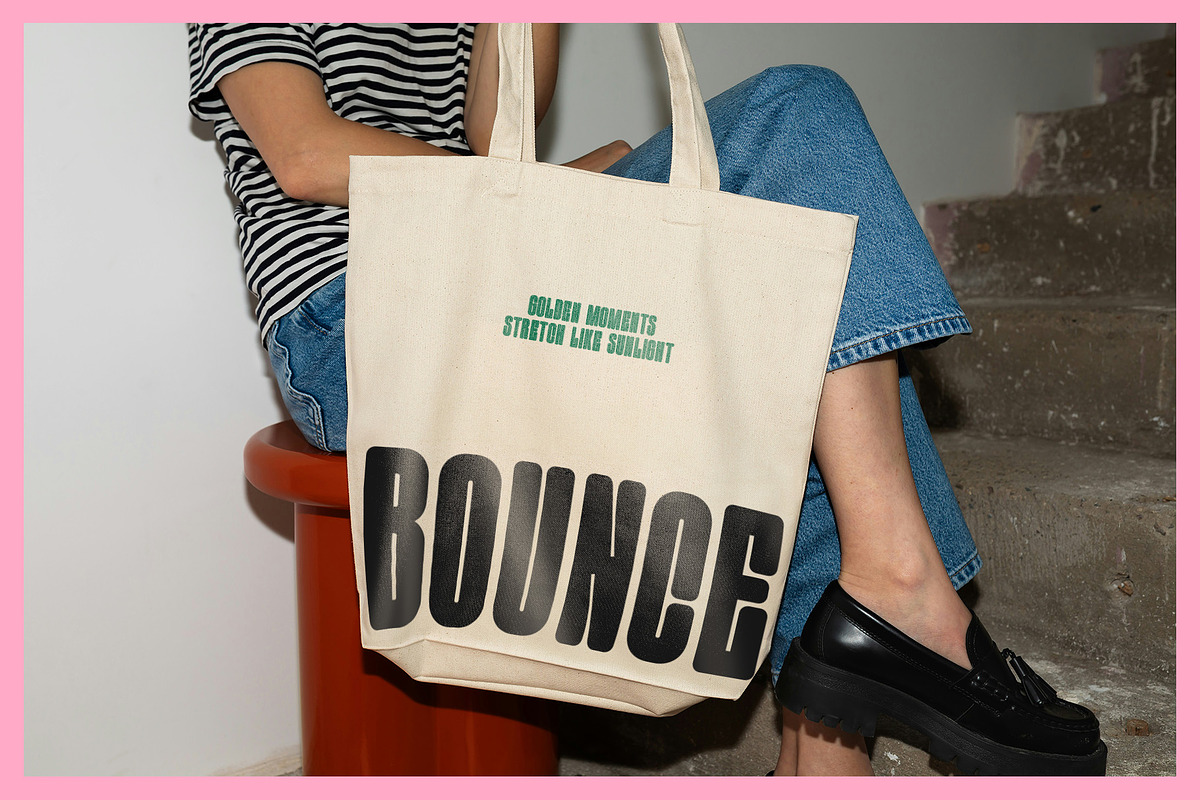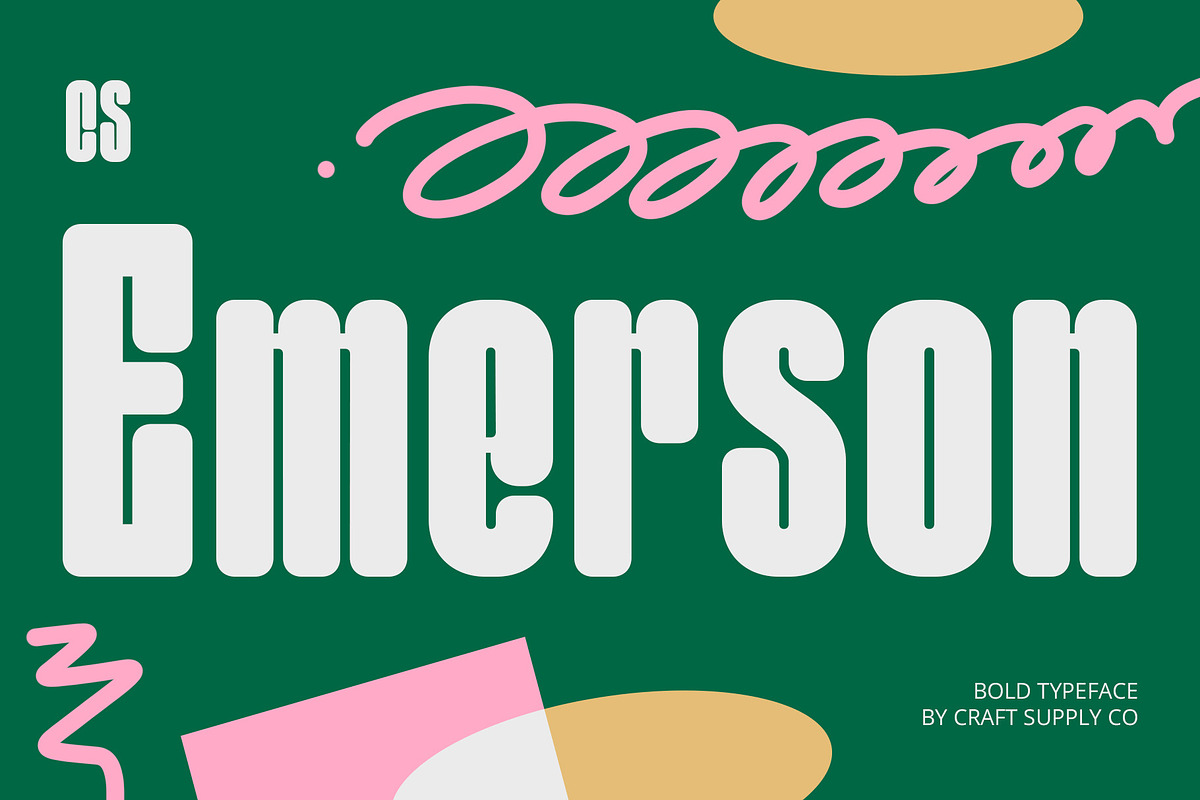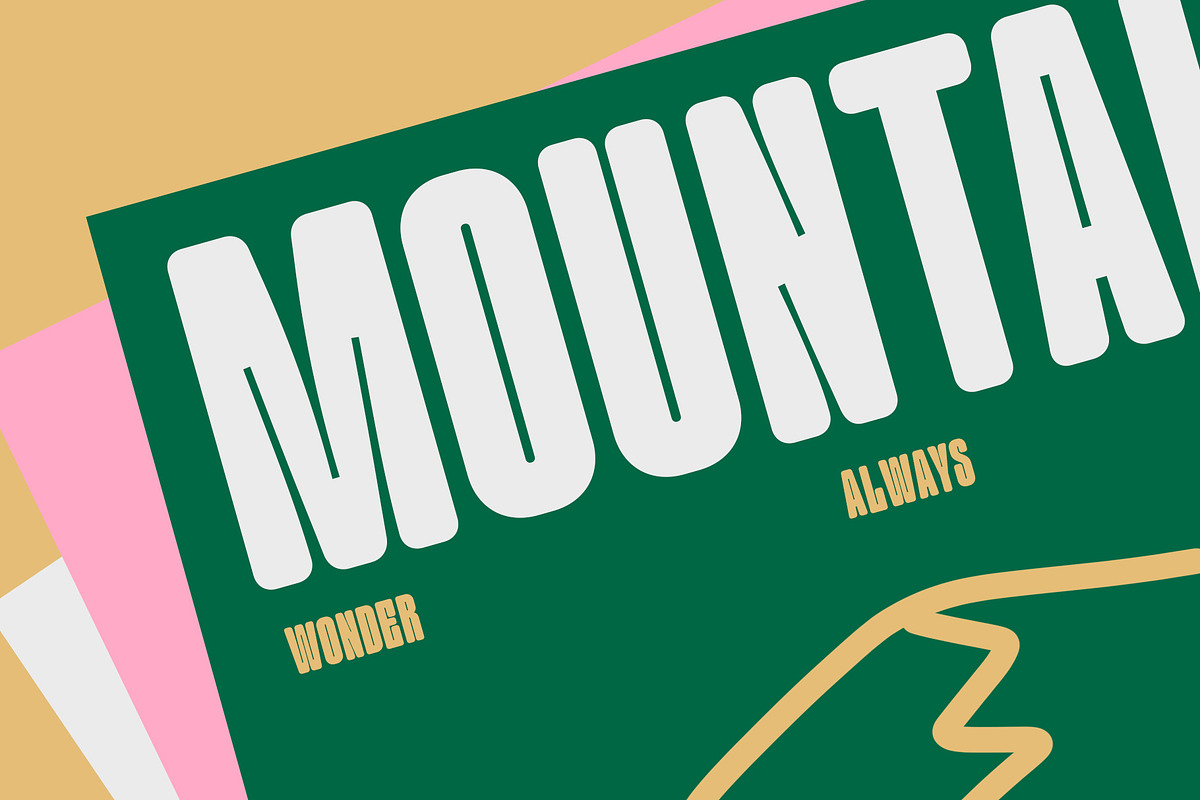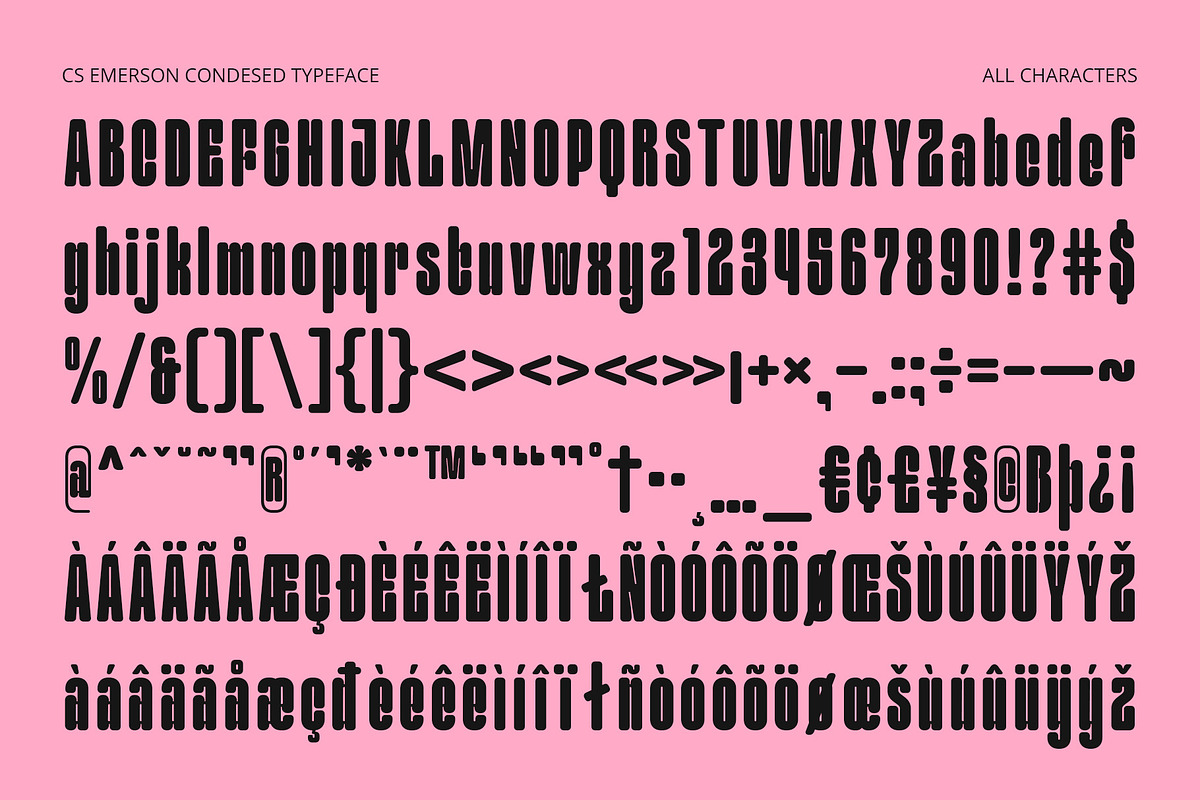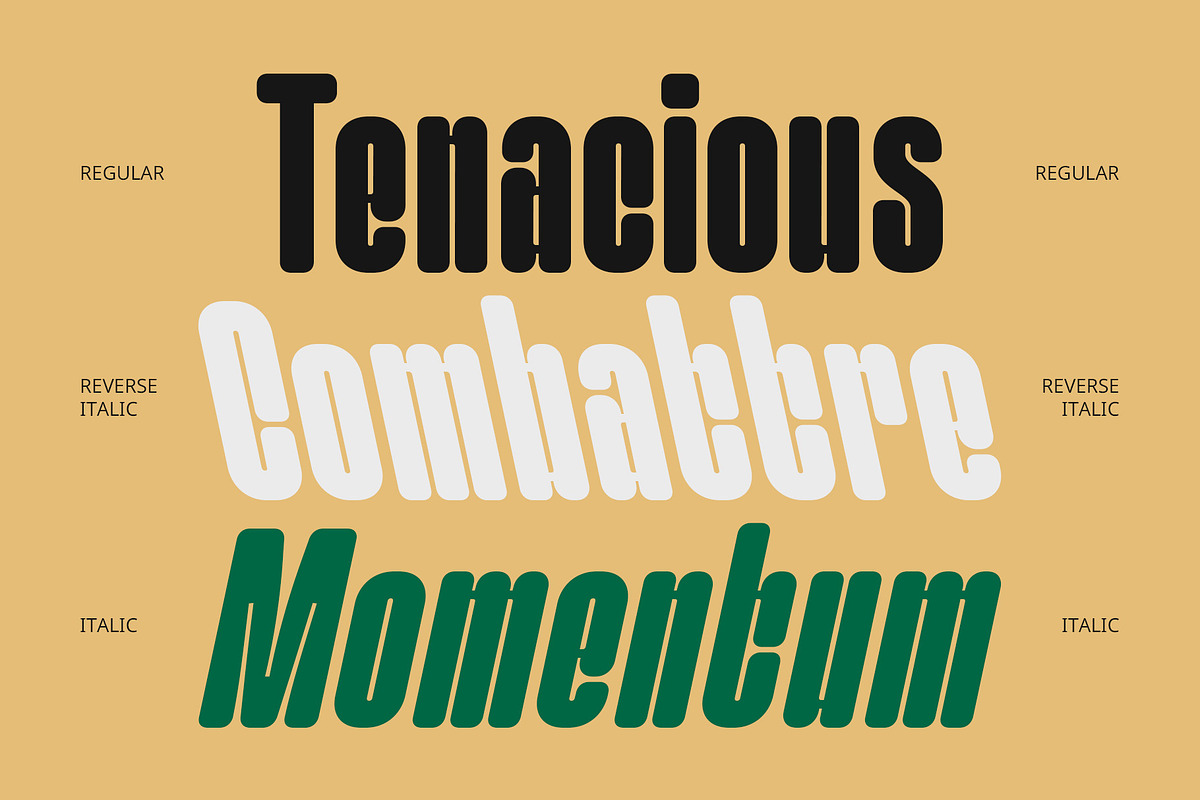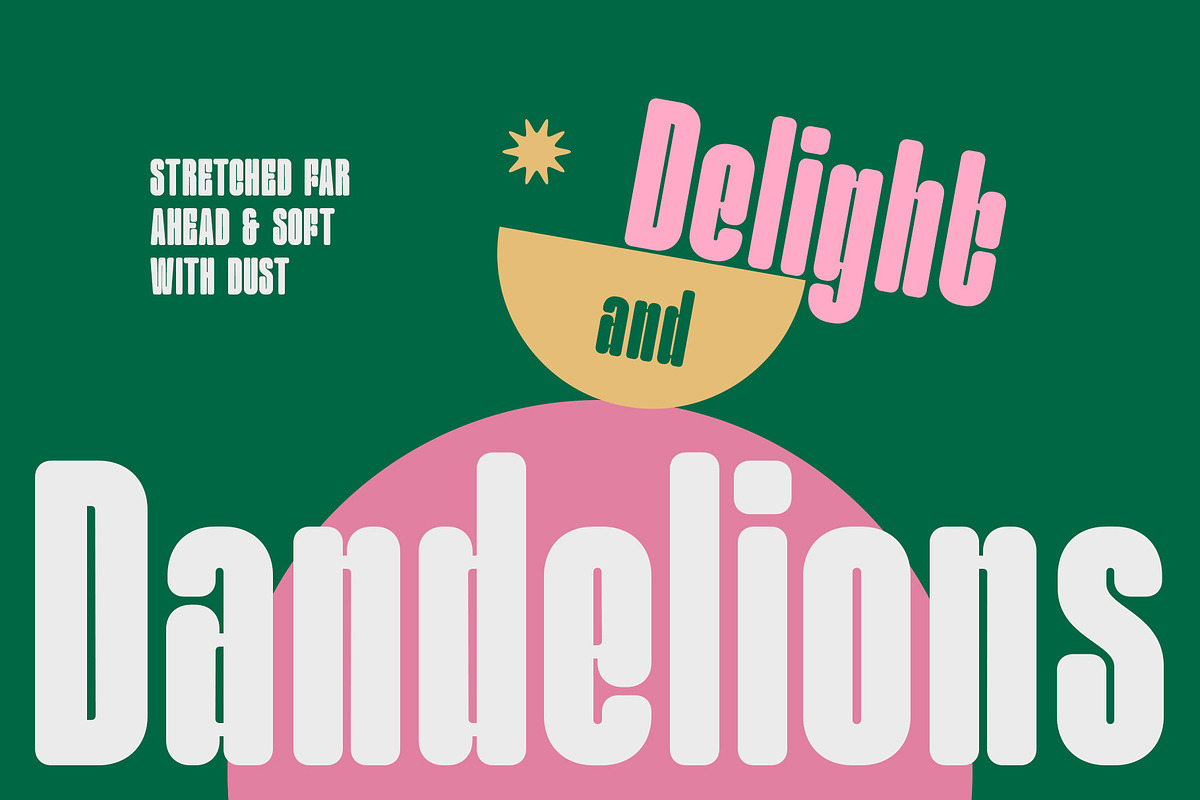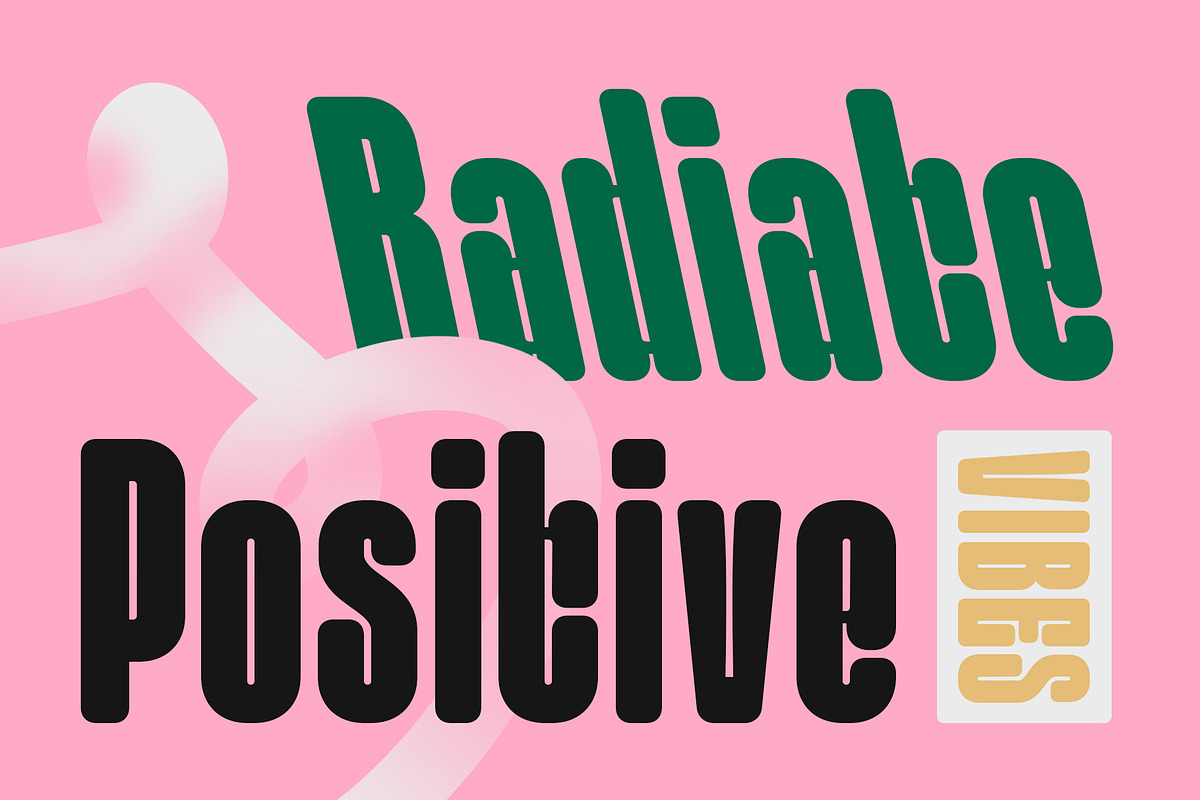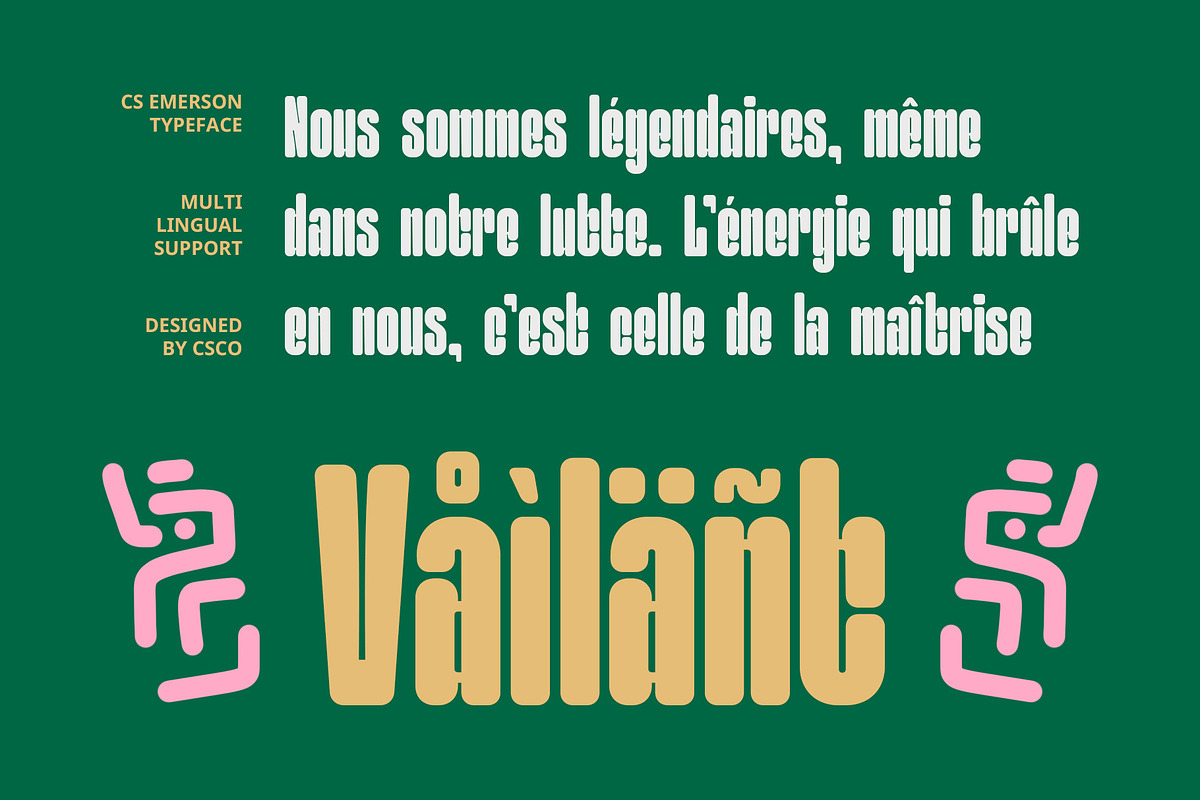
CS Emerson – Bold Font
CS Emerson – Bold Font: Retro Charm Meets Modern Simplicity
Bold, Condensed Structure with a Soft Touch CS Emerson is a display sans serif font featuring a bold weight and a condensed layout that maximizes space without compromising on legibility. Its slightly rounded edges add a touch of softness to its strong appearance, balancing boldness with friendliness and approachability.
Retro Inspiration with a Modern Twist Rooted in classic retro aesthetics, CS Emerson revives nostalgic design elements with a clean and modern execution. The vintage influence is visible in its proportions and structure, but its smooth curves and geometric balance keep it perfectly relevant for today’s creative needs.
Distinctive and Memorable Personality Every letterform in CS Emerson is crafted to leave a visual impression—unique enough to stand out, yet clean enough to support versatile design applications. Its blend of retro boldness and modern simplicity makes it ideal for logos, posters, headlines, packaging, and lifestyle branding.
Ideal for Bold and Nostalgic Design Projects Whether you’re creating standout social media graphics, stylish apparel branding, or eye-catching editorial layouts, CS Emerson offers a dynamic look that evokes warmth, confidence, and timeless cool. It’s the perfect choice for projects that seek to blend nostalgia with a fresh and modern edge.
- CS Emerson Regular
- CS Emerson Italic
- CS Emerson Reverse Italic